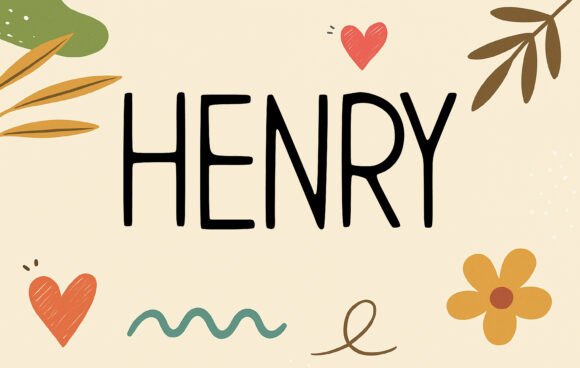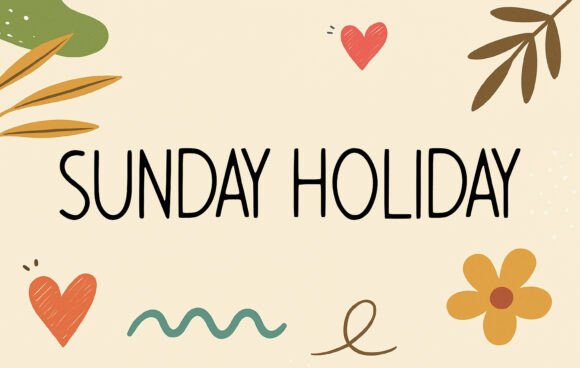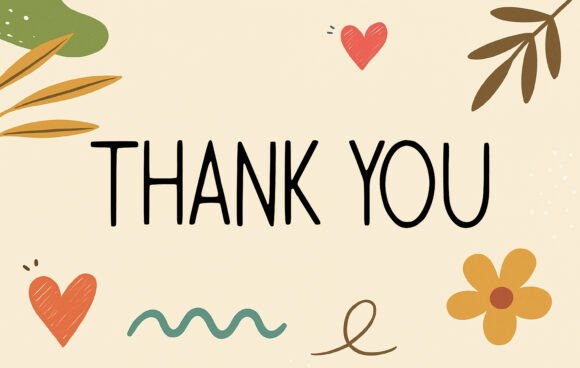
Henry Font
About the Henry Font
Welcome to the world of Henry Font, a typeface that will inspire your next great project. This font is designed to be a true favorite and it has the potential to take your creative ideas to the highest level
Henry Font’s strong, slightly condensed letterforms make it ideal for headlines, logos, and short-form text in branding applications. Its confident presence works well on posters and packaging, adding a touch of classic sophistication. However, its less-than-optimal x-height makes it less suitable for extended body copy or UI elements where high readability is paramount.
Consider pairing Henry with a clean sans-serif like Montserrat for a modern contrast, or a warmer serif such as Garamond for a more traditional feel. A playful script font could also be used sparingly to complement Henry’s boldness in specific applications, adding visual interest without overshadowing its impact.
Henry’s overall personality is best described as bold and sophisticated, conveying confidence and a touch of timeless elegance. It’s a versatile choice for brands seeking to project authority and quality, particularly in the fashion, luxury goods, or publishing industries.